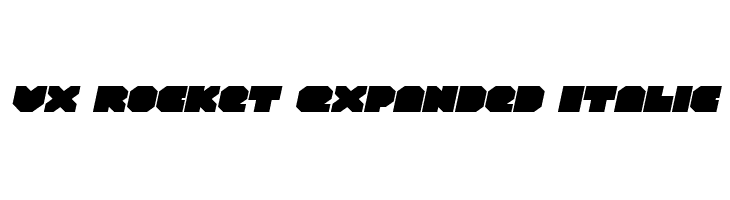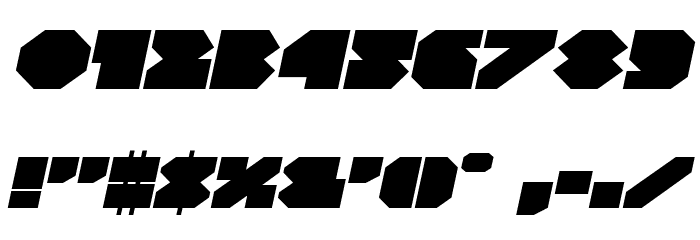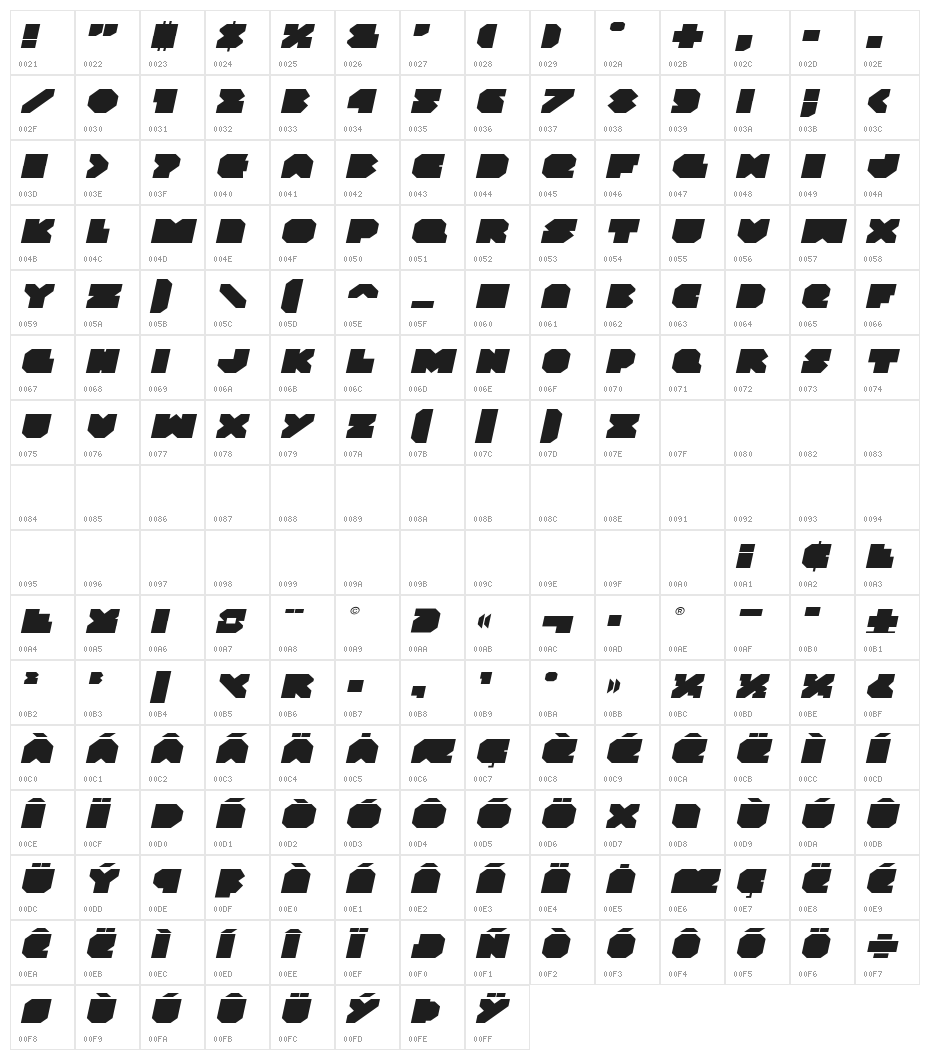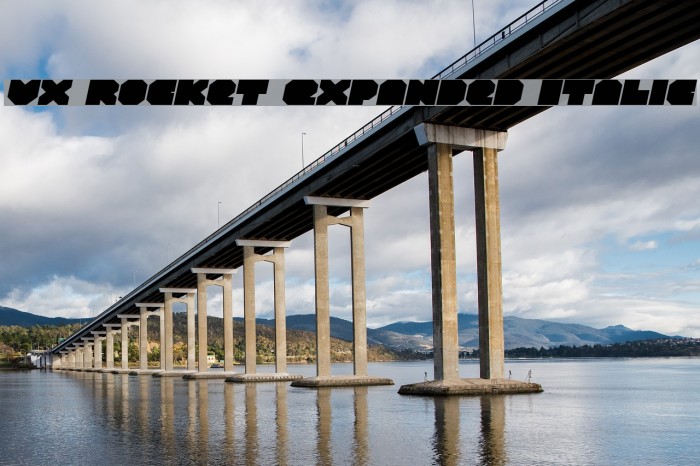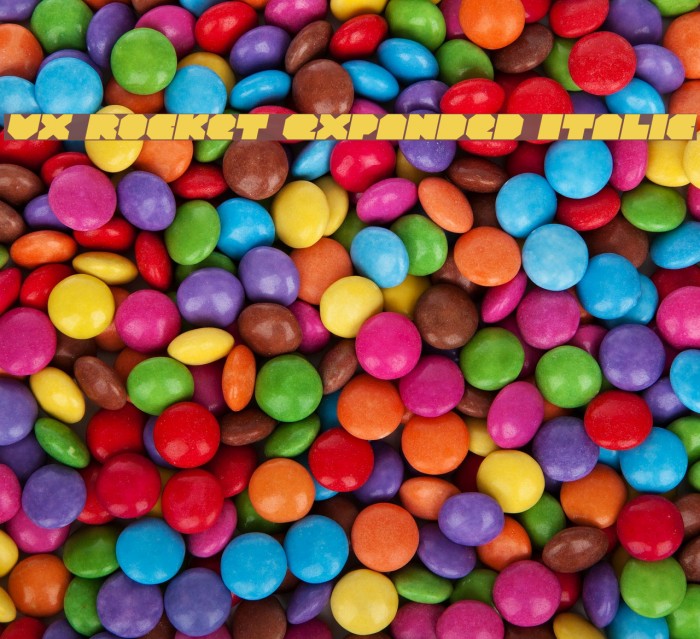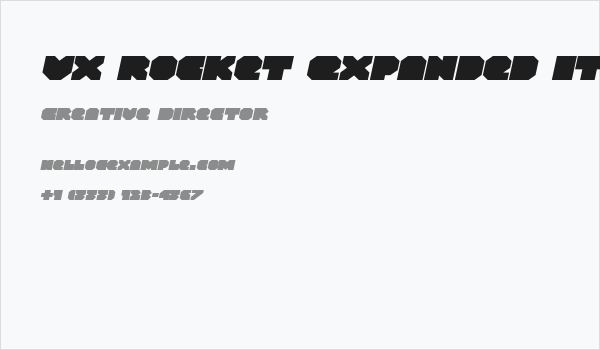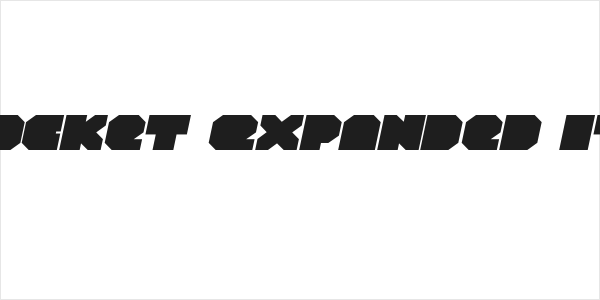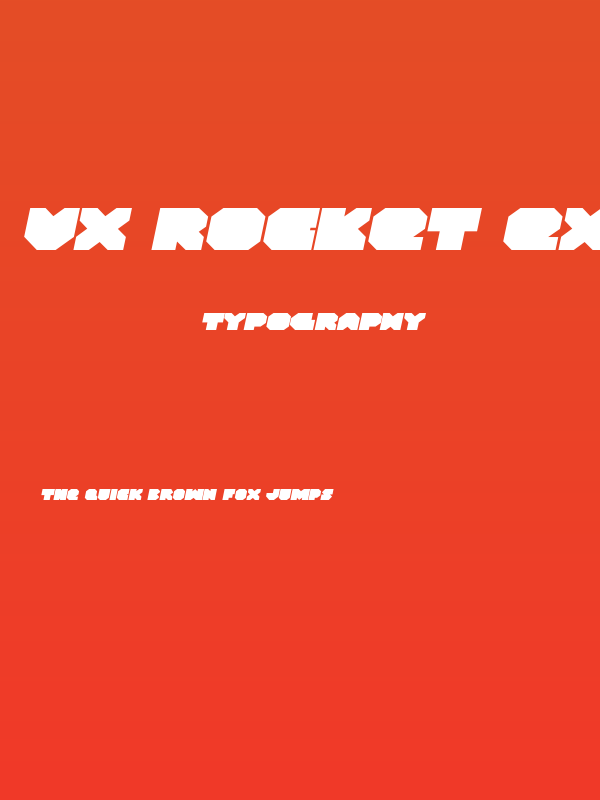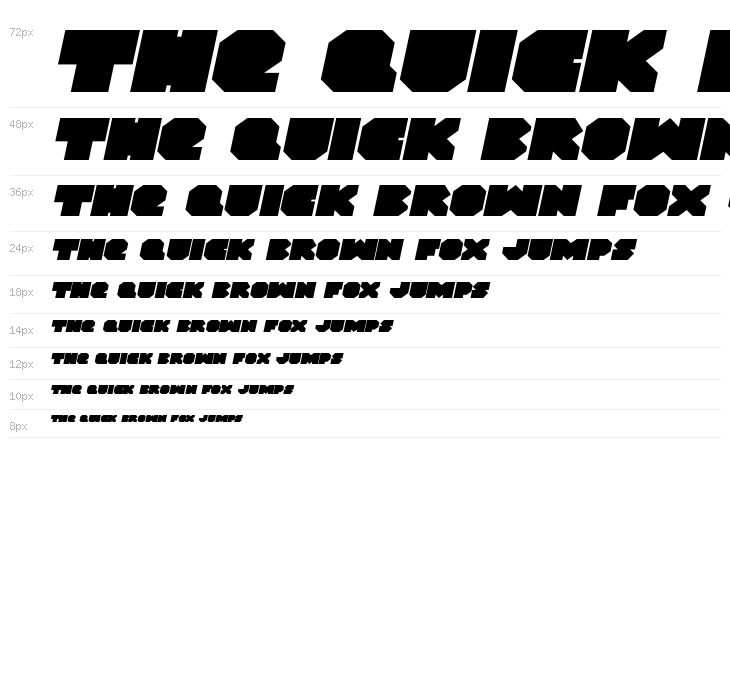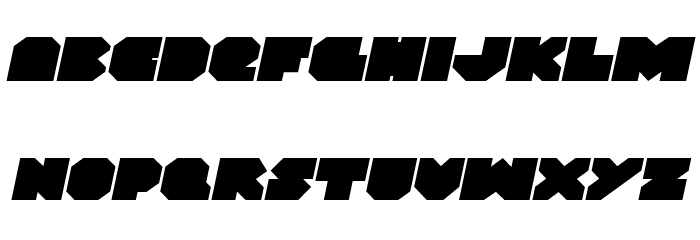
VX Rocket Expanded Italic Font
VX Rocket Expanded Italic Description
This font features a bold, geometric design with a futuristic flair. The characters are sharply angular, creating a sense of movement and energy. The expanded width and italic slant give it a dynamic and aggressive appearance, making it stand out in any design. The uppercase and lowercase letters maintain a consistent style, with thick strokes and minimal contrast, emphasizing a strong, cohesive look. The numerals and special characters follow the same bold and angular theme, ensuring uniformity across all text elements.
| Proposed Projects | Ideal for sci-fi themed posters, video game titles, tech branding, and futuristic event invitations. |